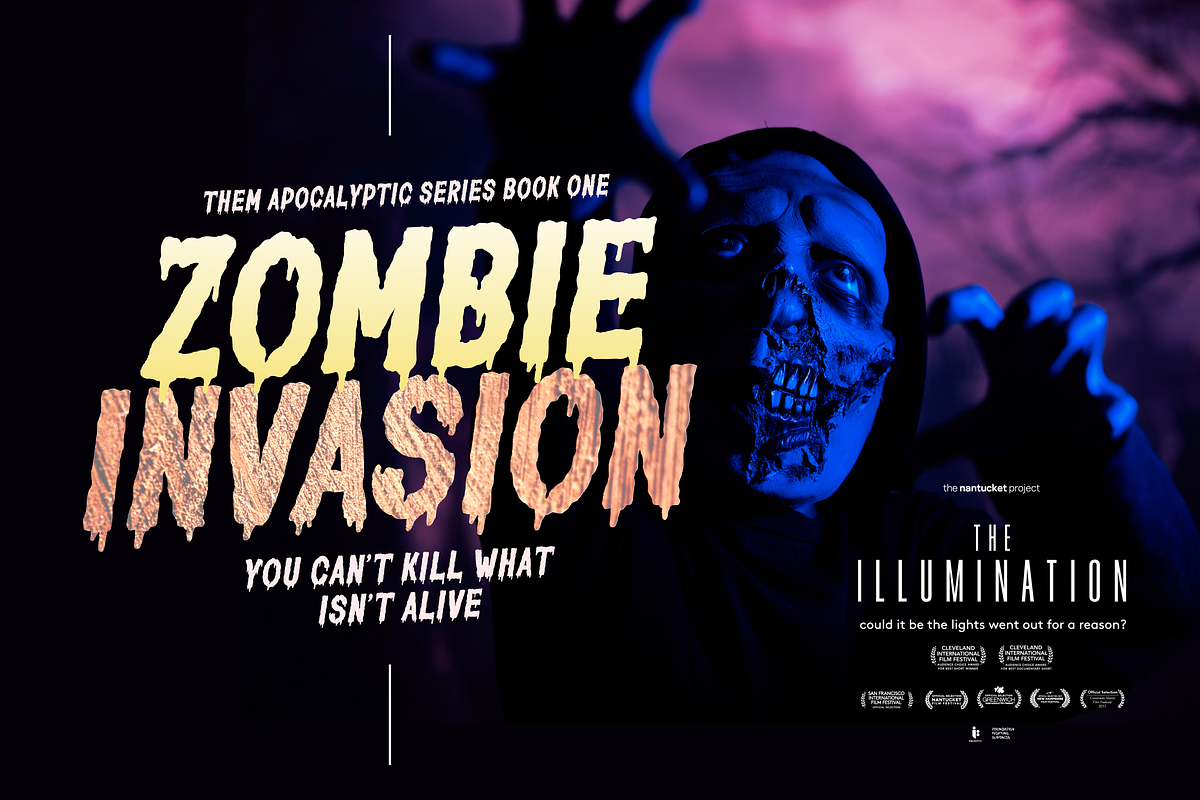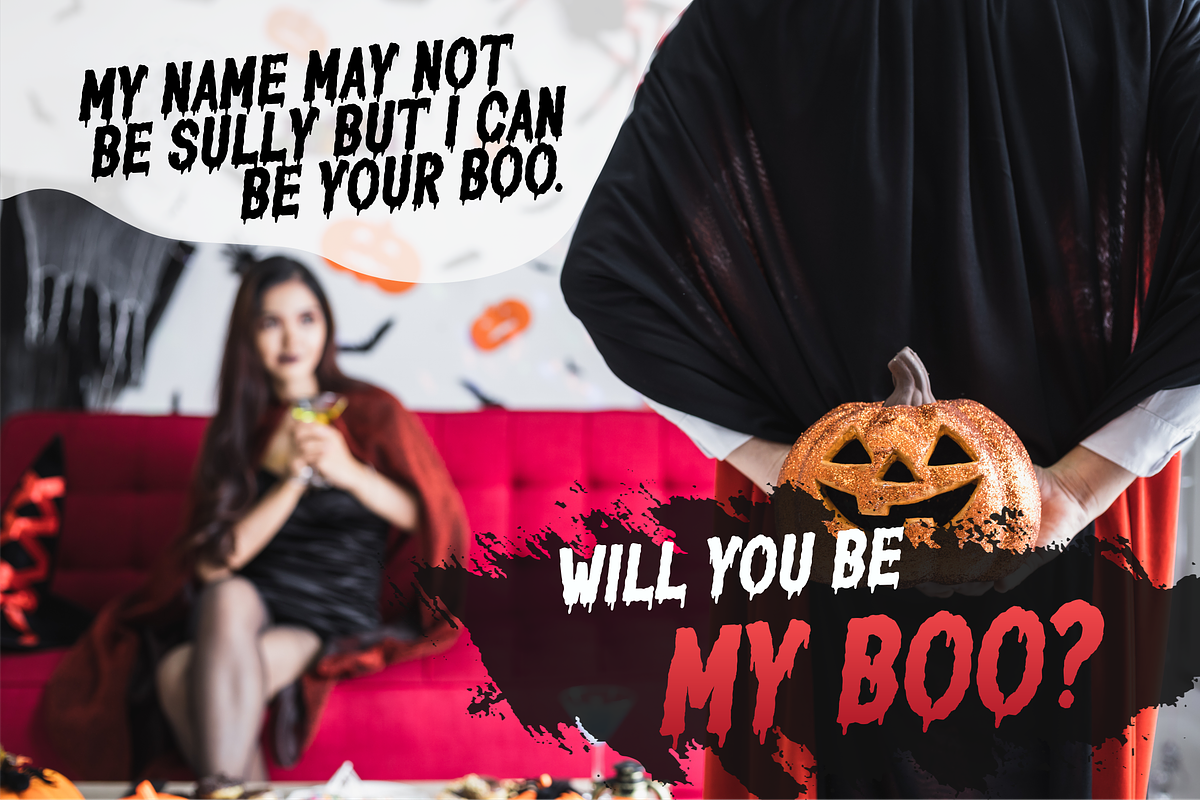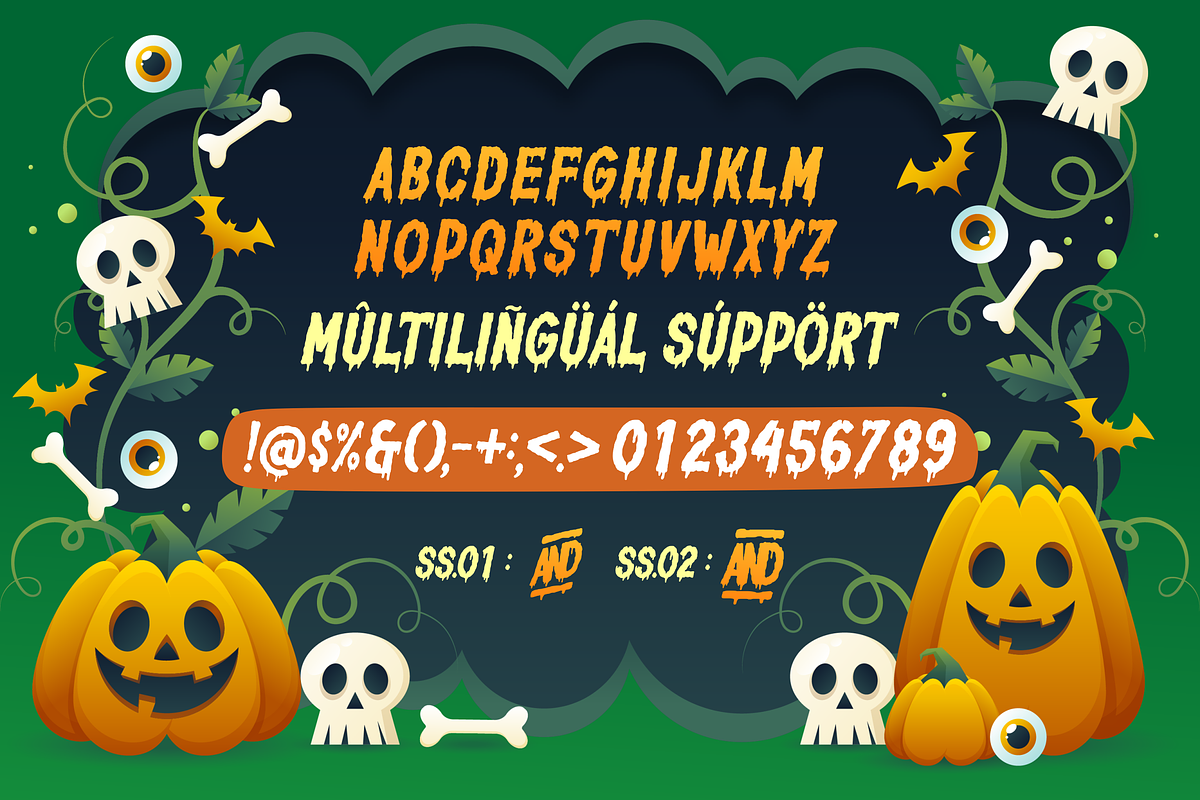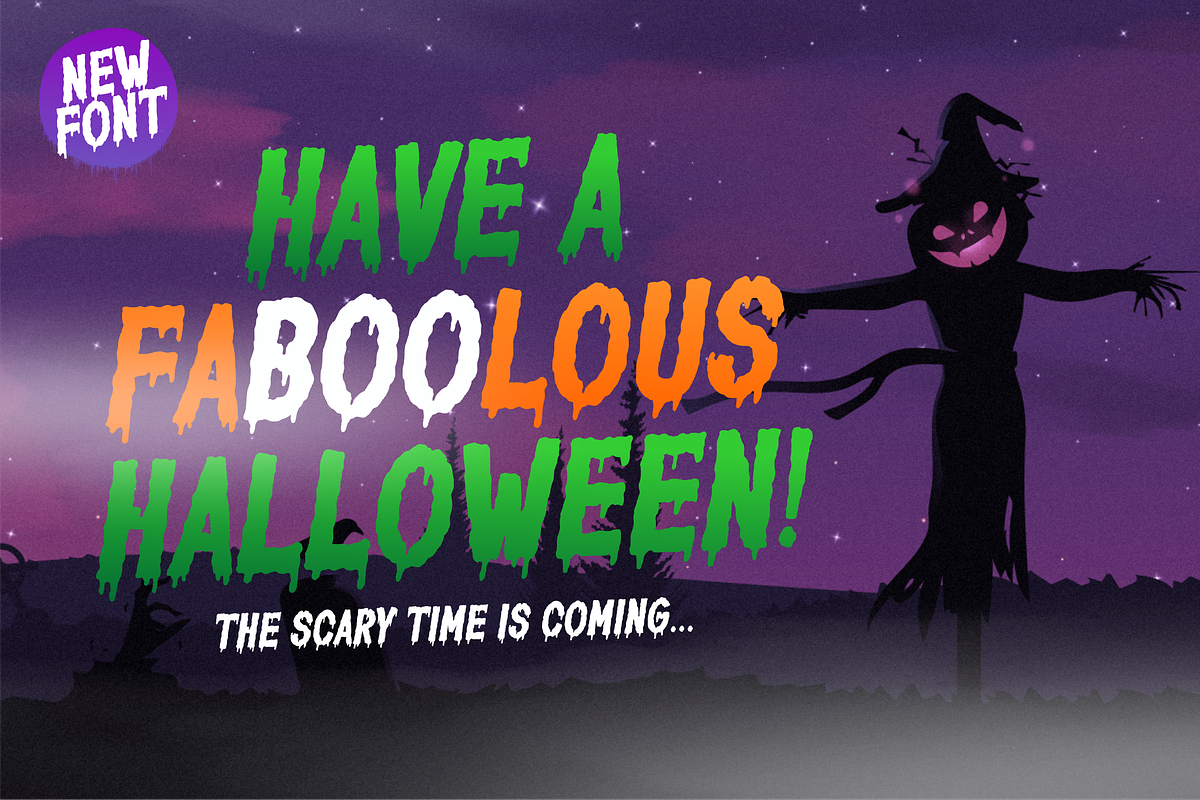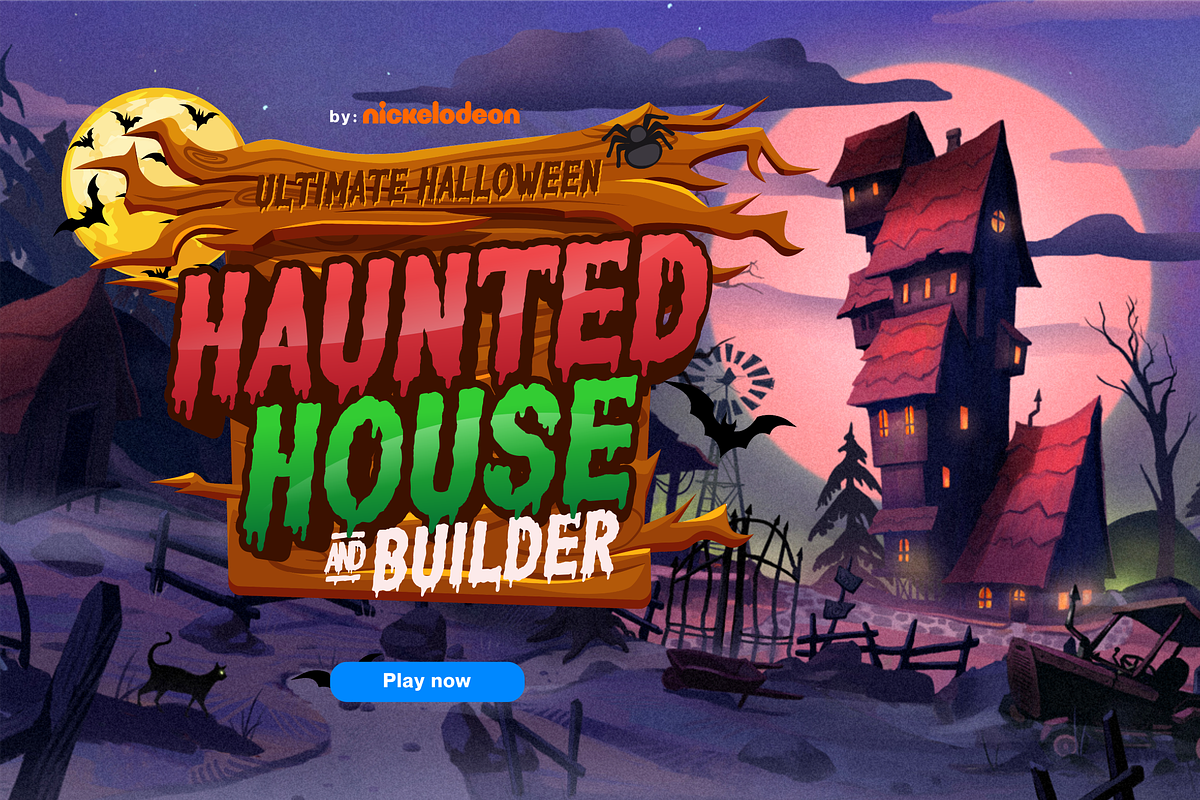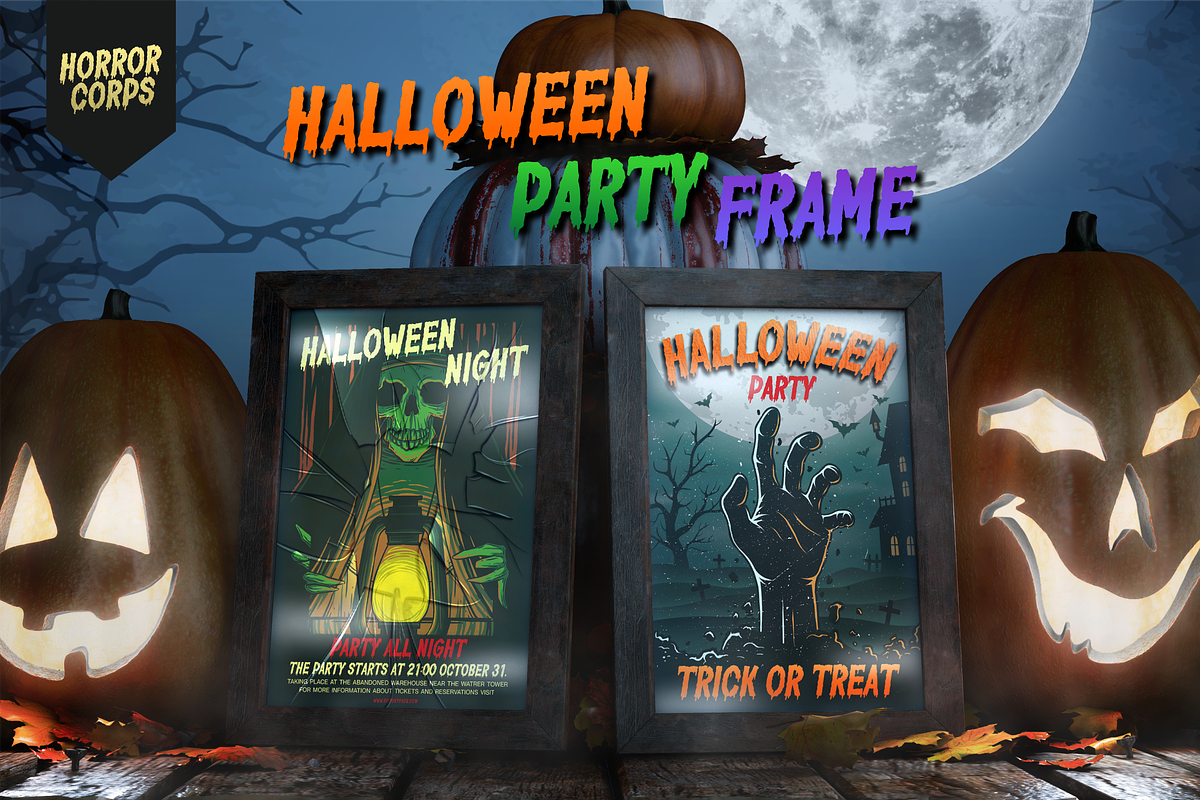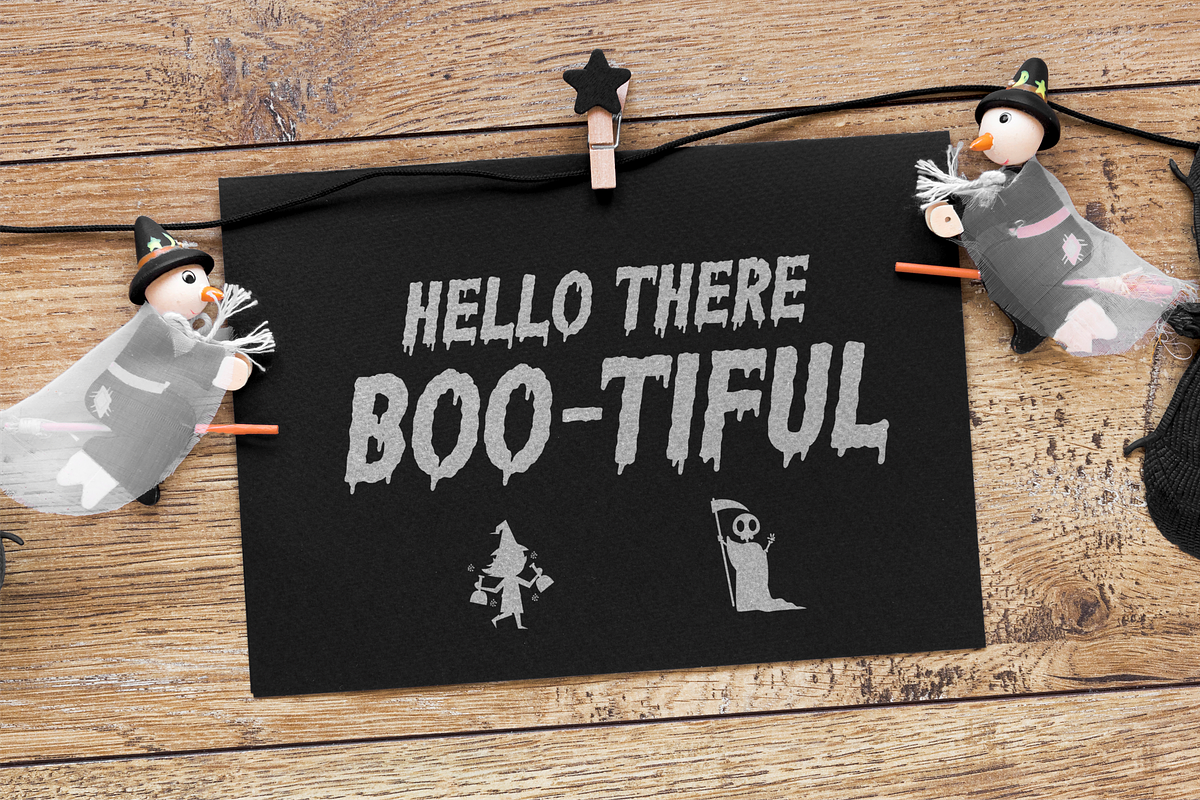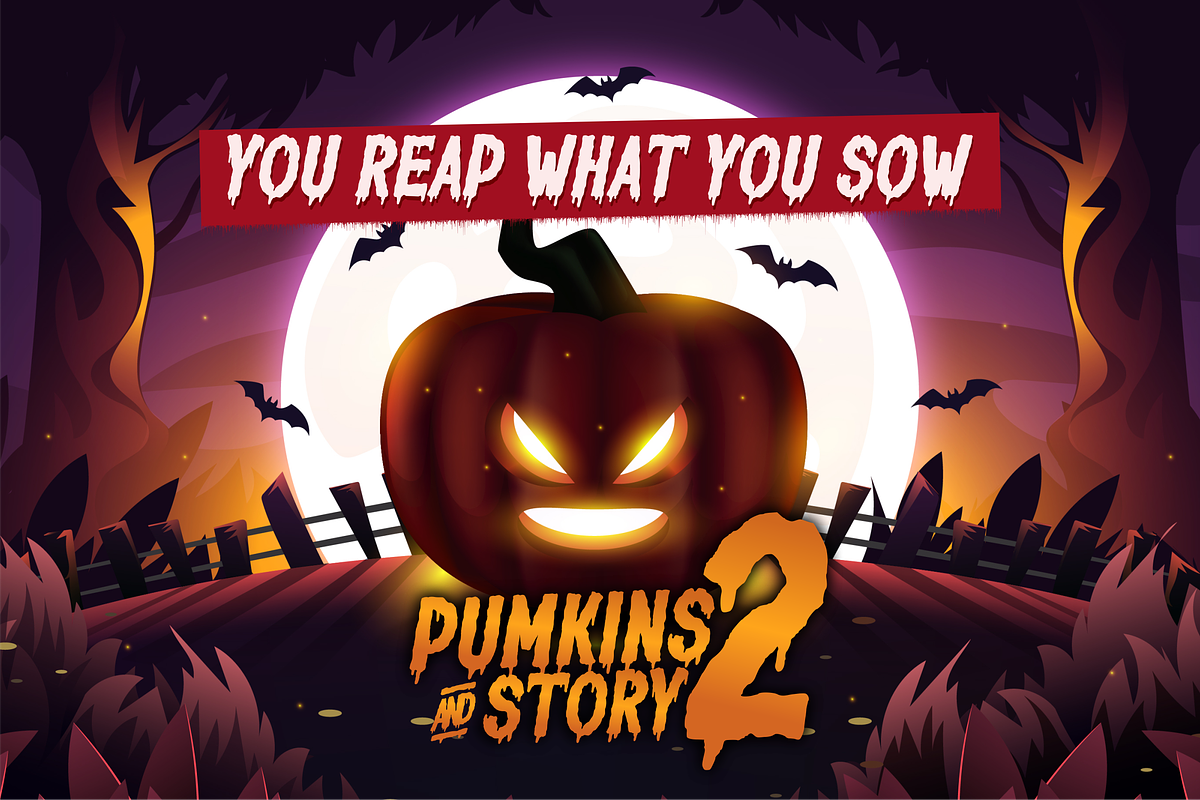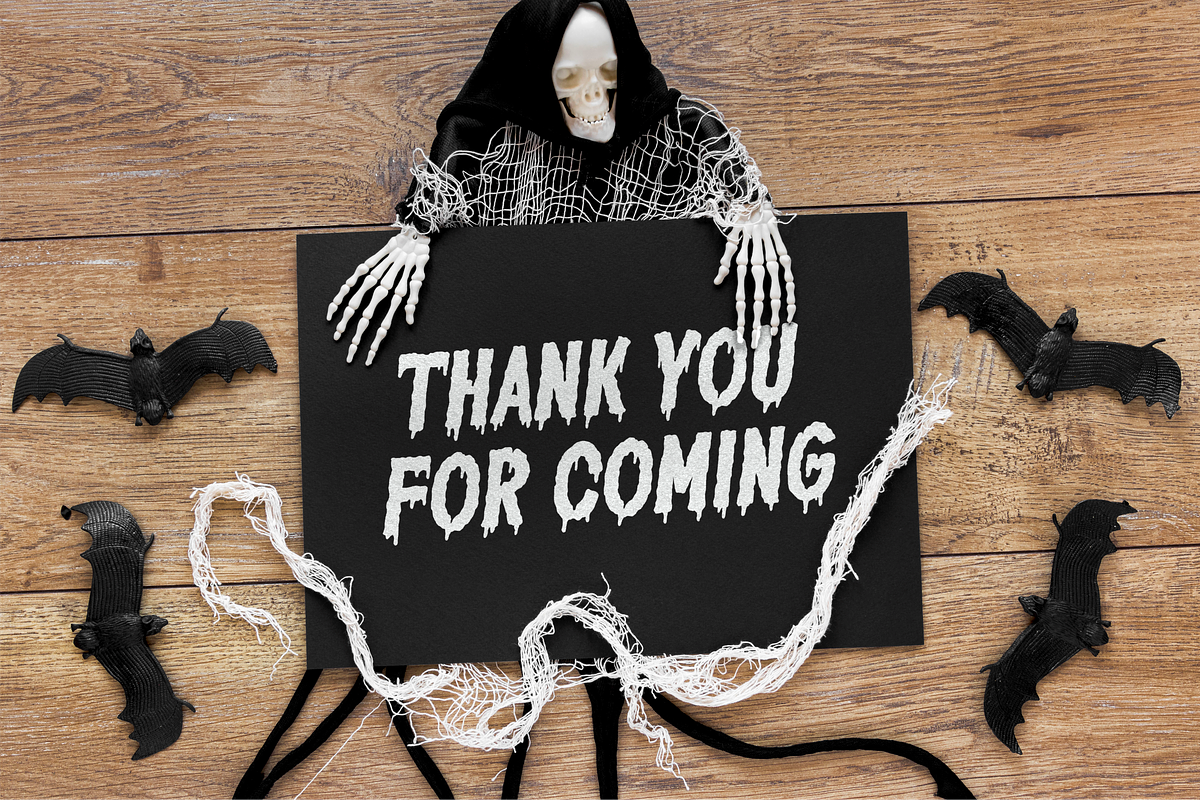
Horror Corps Font
Proudly Presenting, Horror Corps a Handdrawn All Caps Bloody Font.
Horror Corps is perfect for any titles, logo, product packaging, branding project, megazine, social media, or just used to express words above the background.
Horror Corps also come with Multi-Lingual Support.